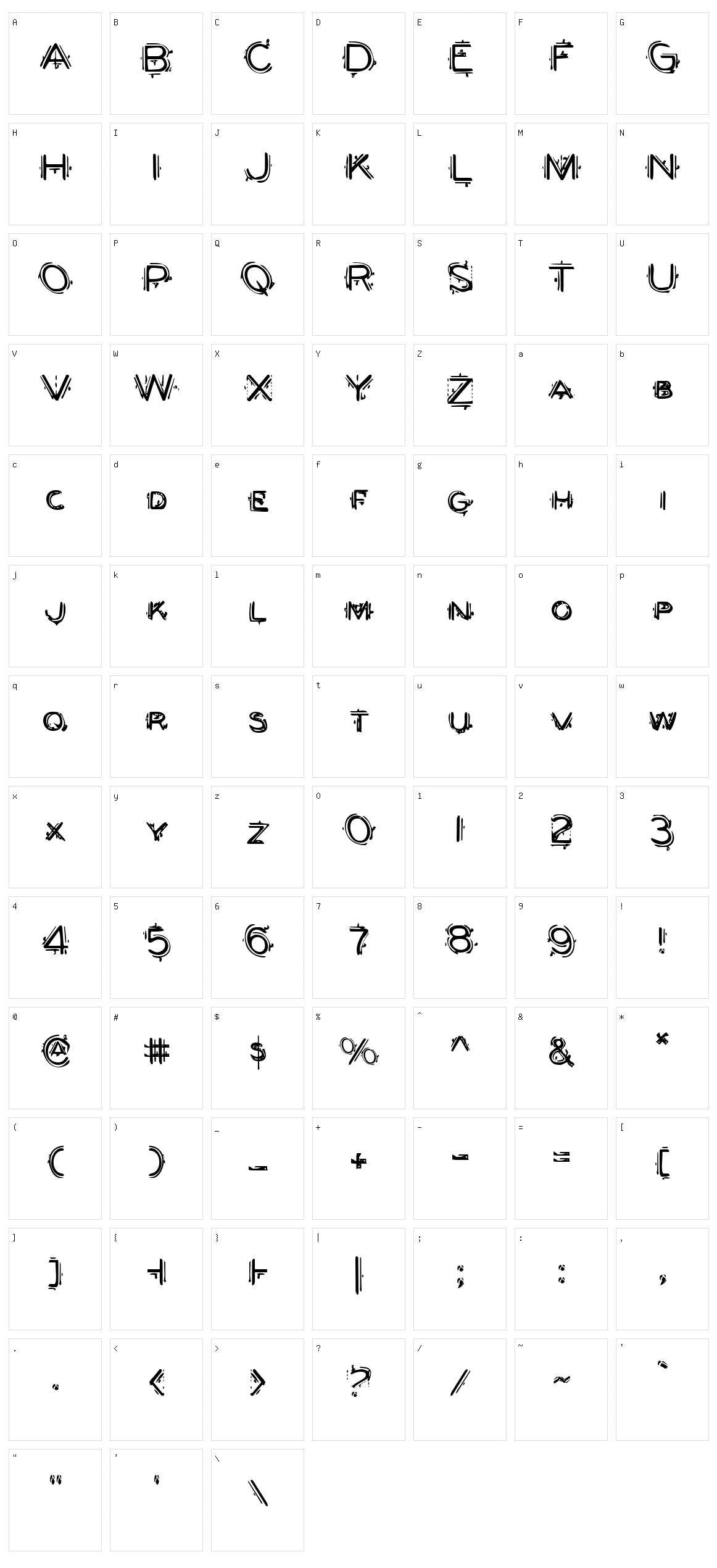
The free font Berserker is carefully designed by Iconian Fonts, showcasing a thoughtful balance of creativity and usability and falls under the Distorted font style. When you download the ZIP file, it contains only 923.1 KB of font files, making it lightweight and quick to download. Please review the license details below to understand permitted usage and distribution rights. If license information is not available, we recommend using this font for personal projects only or contacting the author directly for commercial usage permissions.
This font comes with the following 9 versions: Regular, Italic, Shadow, Shadow Italic, Expanded, Expanded Italic, Condensed, Condensed Italic and Leftalic.